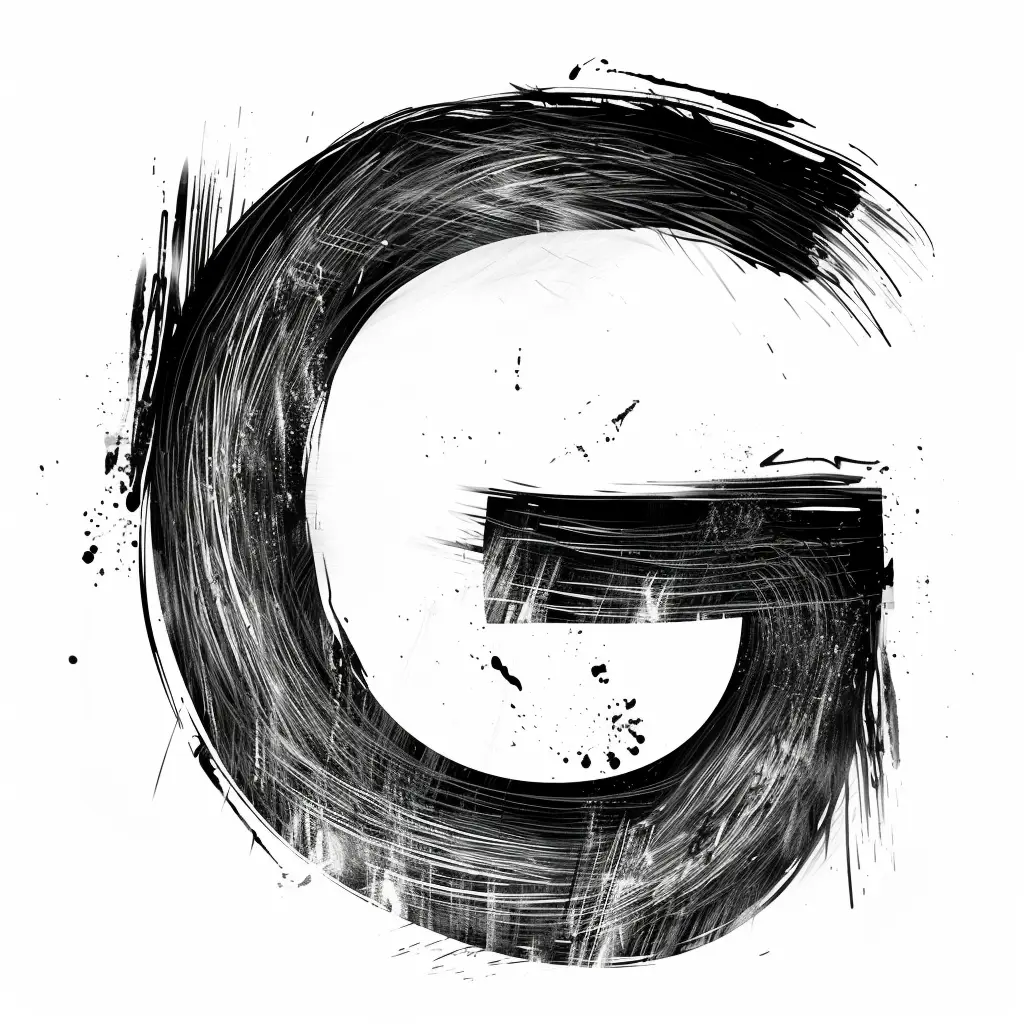
The image features a stylized letter "G" rendered in a bold, brushstroke-inspired design. The letter is predominantly black with textured, layered strokes and scattered ink splatters, set against a clean white background. The artistic style emphasizes dynamic, hand-painted aesthetics with visible brush marks and a slightly rough, expressive finish.